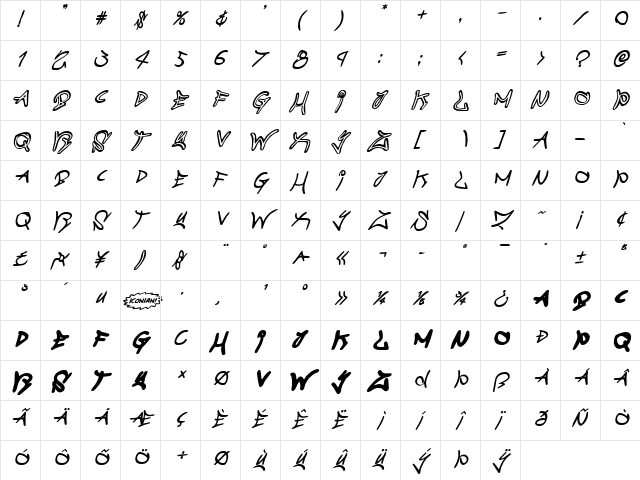
Graffiti Street Bold Italic Bold Italic
Design Context for Graffiti Street Bold Italic Typeface
Graffiti Street Bold Italic is a composed and adaptable typeface that performs quietly and consistently across a wide range of design contexts. The slanted form adds forward momentum and visual energy. Its bold stroke weight gives it real presence on the page.
Pro Tip: Use Graffiti Street Bold Italic for emphasis, pull quotes, and subheadings where its slanted energy can add rhythm to the layout.